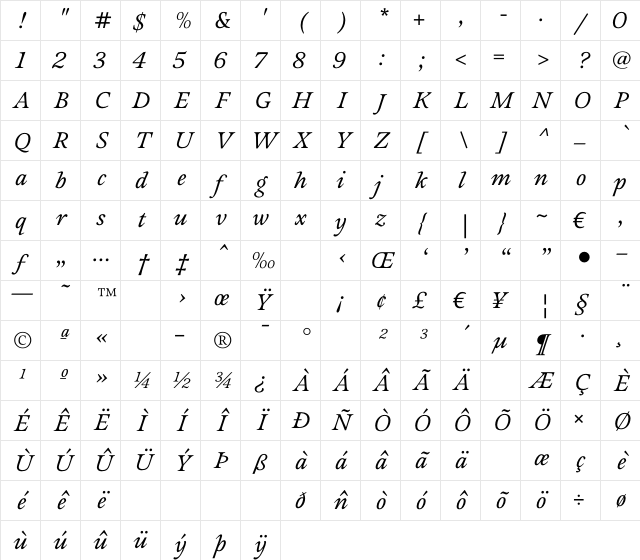
Sovereign-RegularItalic Regular Free Font
Sovereign-RegularItalic Regular
Design Context for Sovereign-RegularItalic
Sovereign-RegularItalic is a composed and adaptable typeface that performs quietly and consistently across a wide range of design contexts. The slanted form adds forward momentum and visual energy.
Pro Tip: Use Sovereign-RegularItalic for emphasis, pull quotes, and subheadings where its slanted energy can add rhythm to the layout.